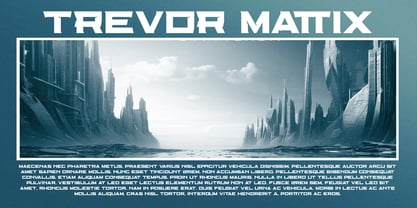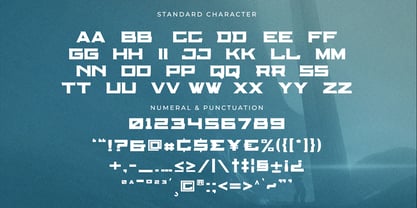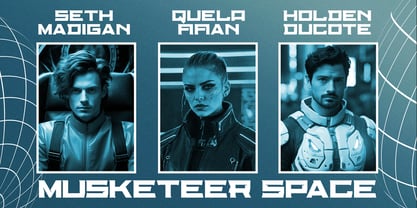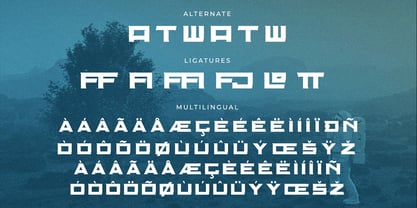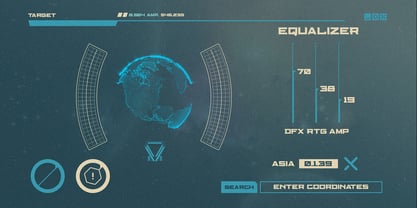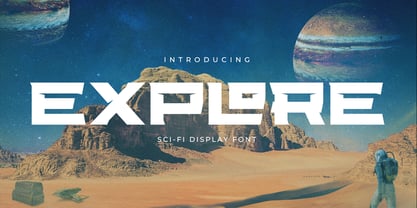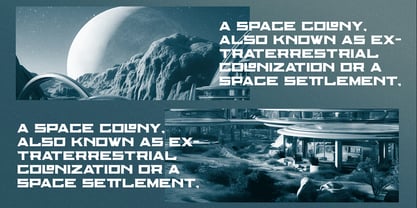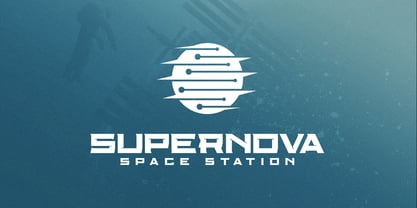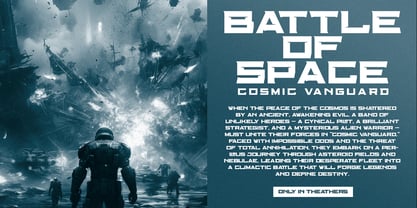
Explore
by Geelator Studio
The Explore Font Family was designed by Gilang Tito Dharmawan and published by Geelator Studio. Explore contains 1 styles. More about this family
Explore Sci-Fi Font. Step into a universe of creativity with our incredible collection of sci-fi fonts. Whether you're a graphic designer, a filmmaker, a game developer, or a sci-fi enthusiast, our fonts are the secret ingredient to making your projects stand out.
Designers: Gilang Tito Dharmawan
Foundry: Geelator Studio